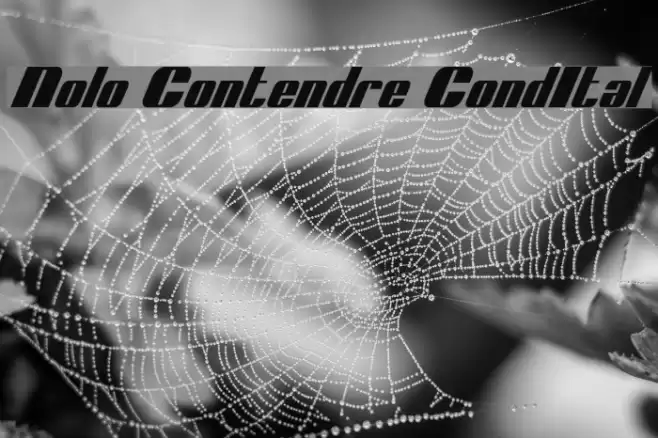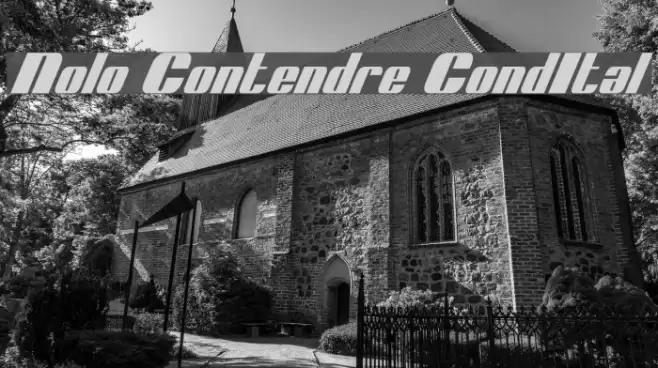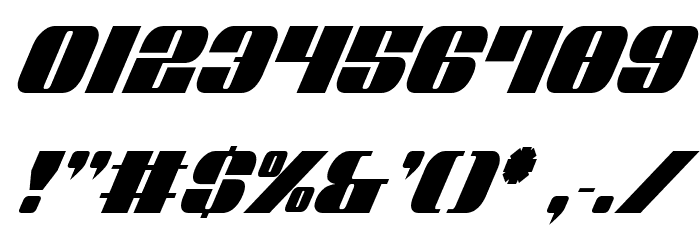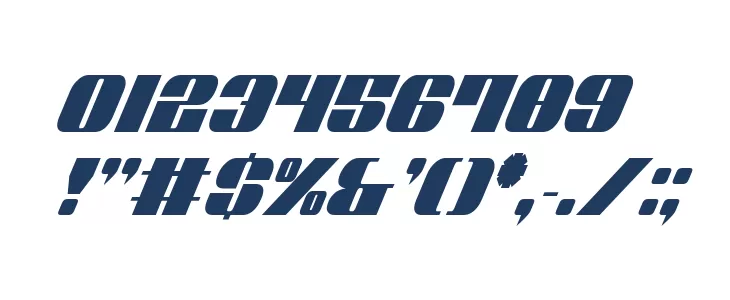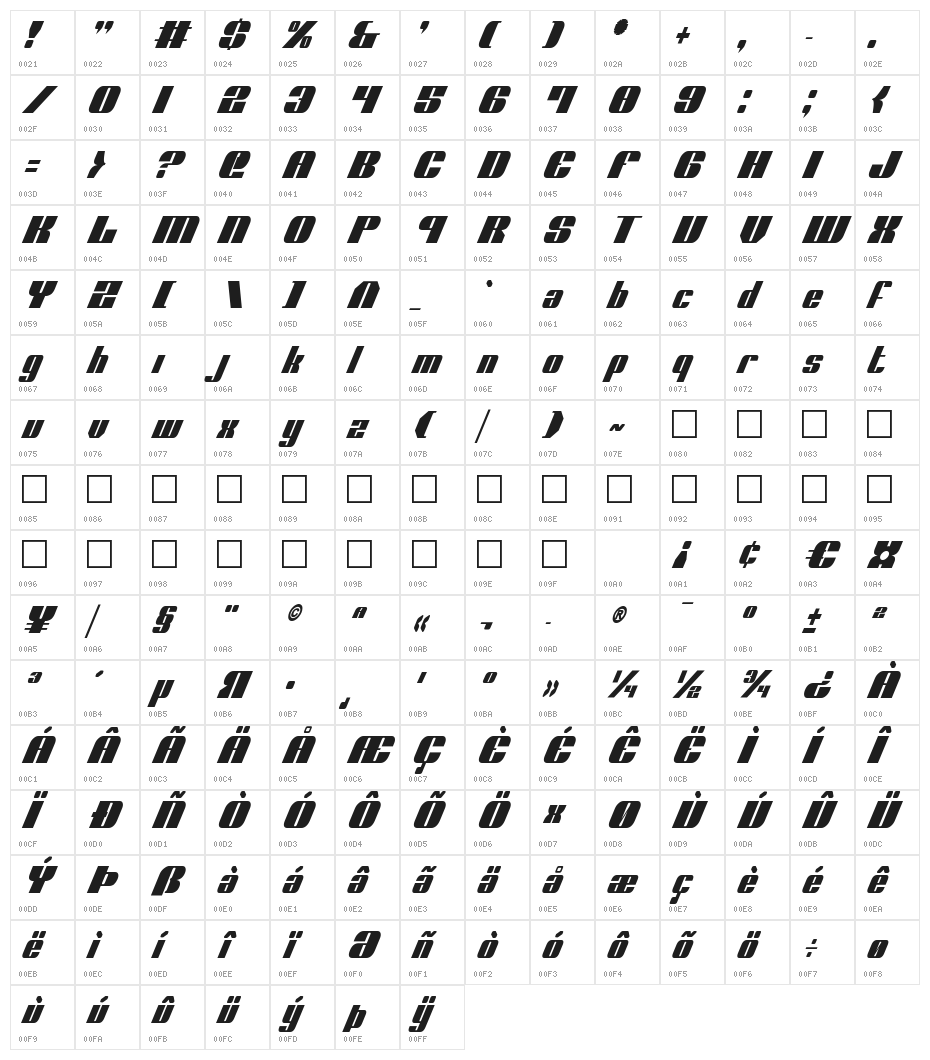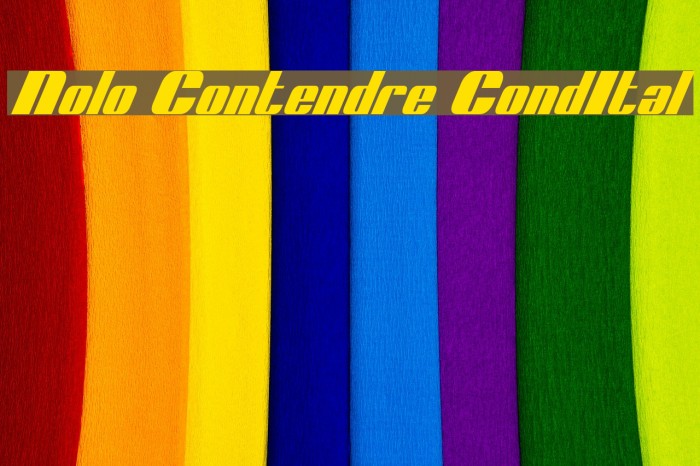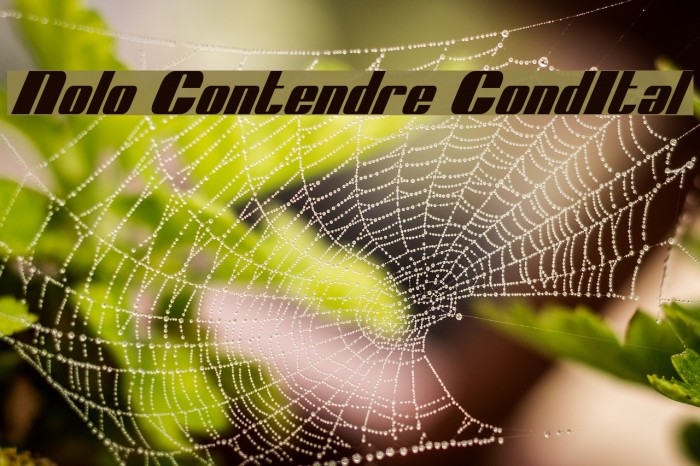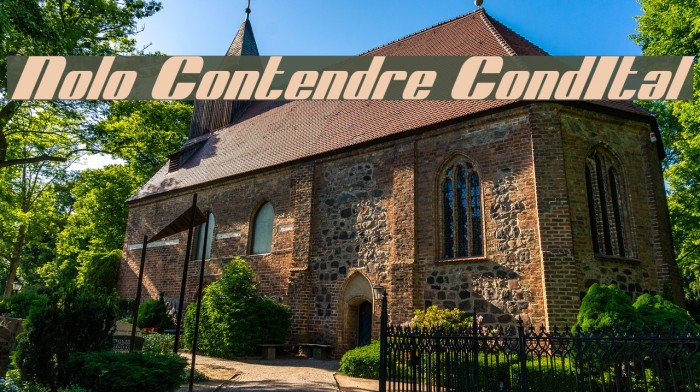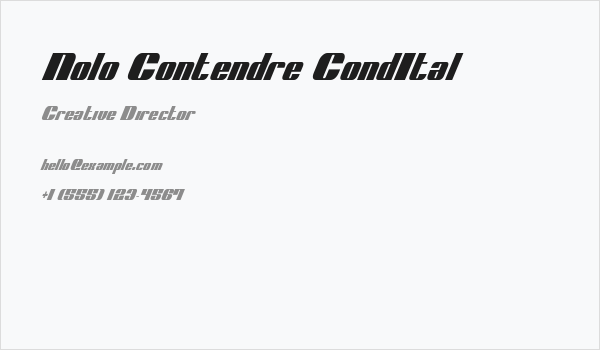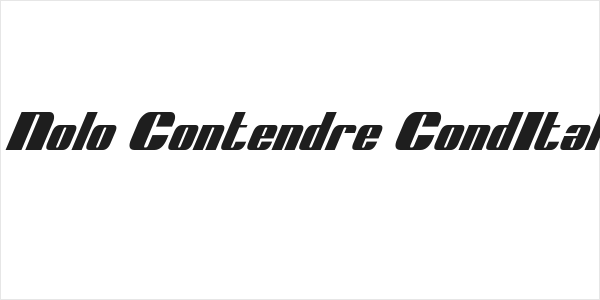
Nolo Contendre CondItal Font
Nolo Contendre CondItal Description
This font exhibits a bold and dynamic style with a distinct italic slant, giving it a sense of motion and energy. The characters are condensed, contributing to a compact and impactful appearance. The strokes are thick and consistent, providing a high contrast that enhances readability and visual interest. The design is modern and sleek, making it suitable for contemporary applications. The uppercase and lowercase letters maintain a uniform style, with sharp angles and clean lines. The numerals and special characters are crafted to match the overall aesthetic, ensuring a cohesive look across all text elements.
A bold, italic, and condensed font with high contrast and a modern style from Uncategorized fonts.
- Proposed Projects: Ideal for sports branding, dynamic posters, modern advertising, and eye-catching headlines.
- Character Spacing: Tight